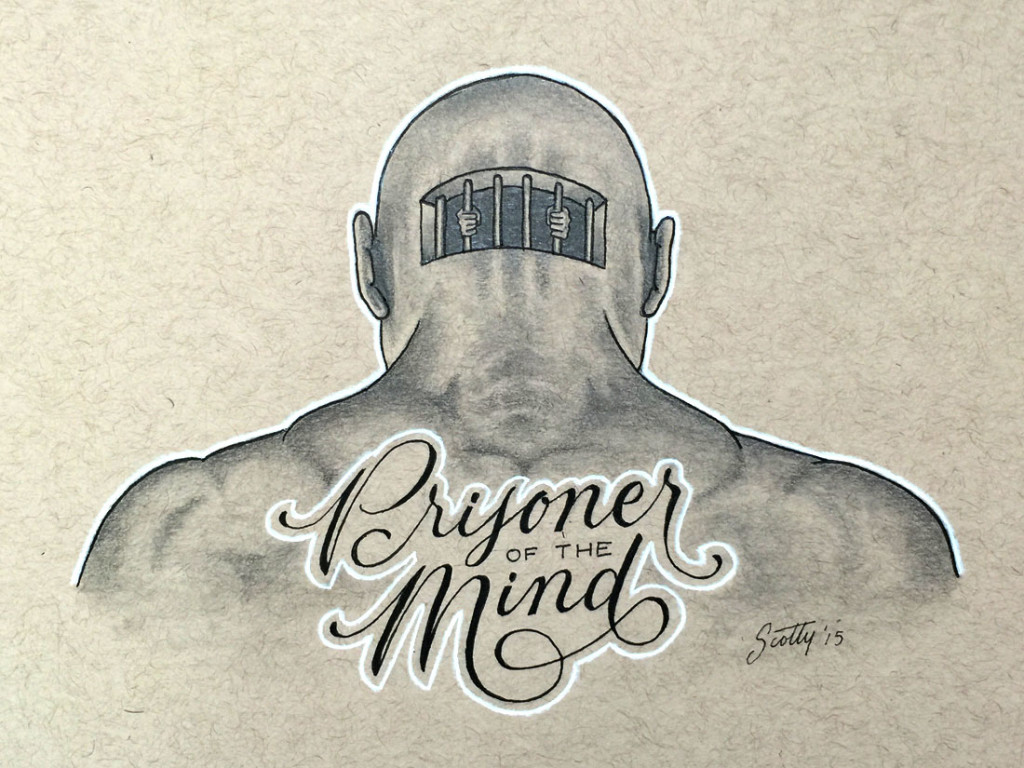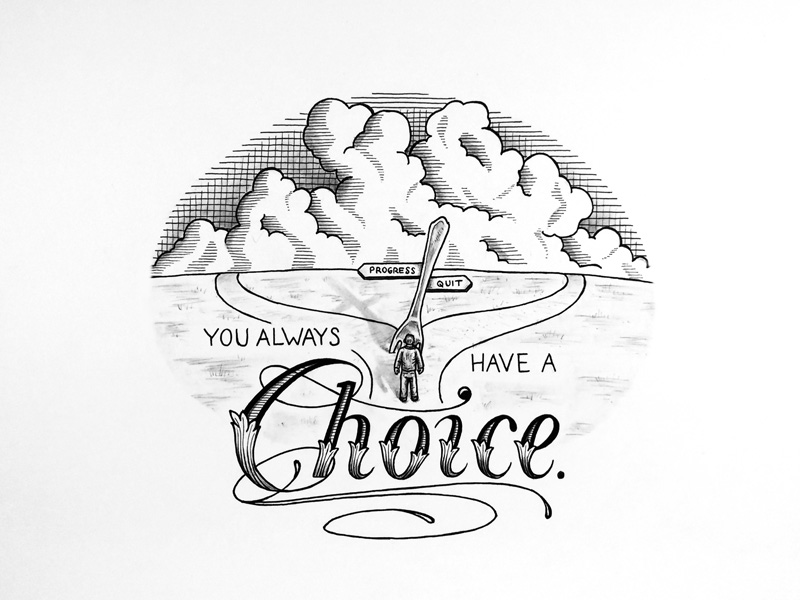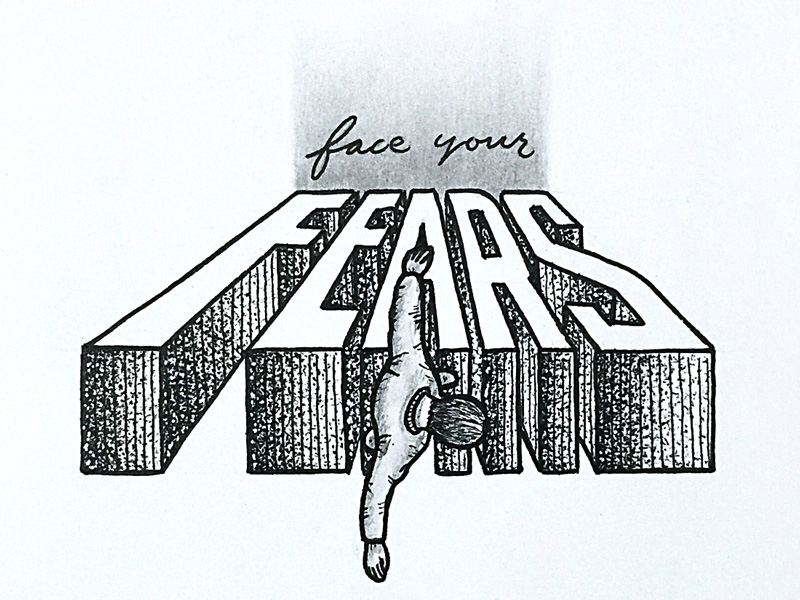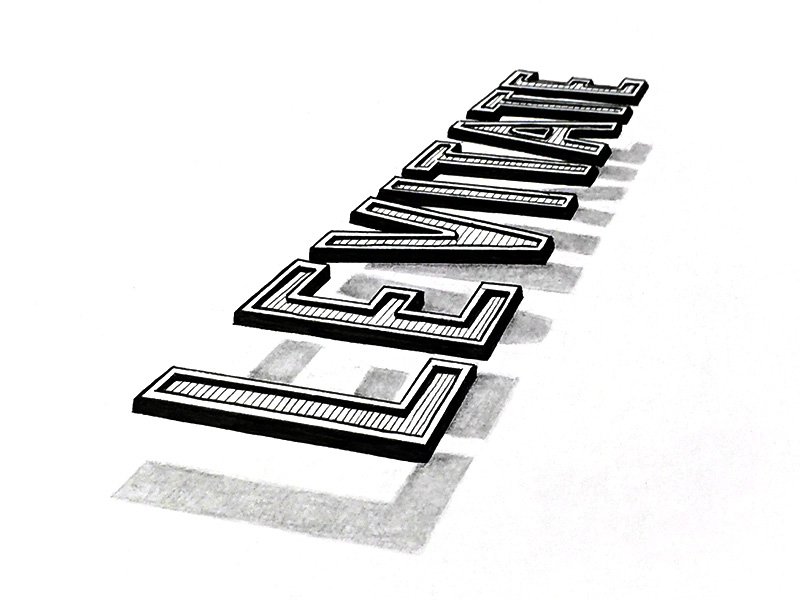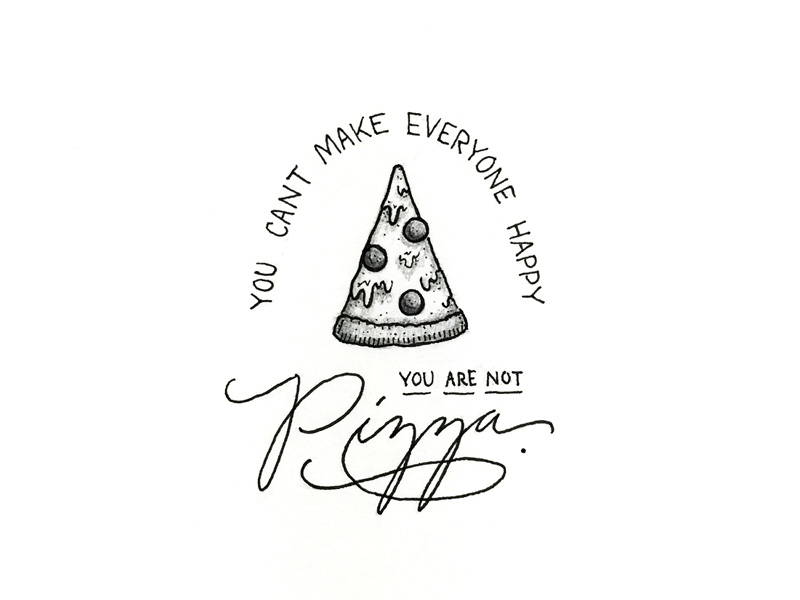
Lettering Legend - Scotty Russell Interview
Scotty Russell has more than earned the title of 'Lettering Legend', not only is he very talented at lettering, he's also very supportive too.
One of the first things that caught my attention when I looked at Scotty's work was the originality of it all. He doesn't follow current trends, he does his own thing and he does it well. Scotty also stood out because he is continually supporting and inspiring those of the lettering world in such on honest way. We first met on Twitter where he was supporting Brooke Bucherie founder of Goodtype by sharing her Lettering Legend interview, and soon after I was able to see many of the ways he was supporting and inspiring others too.
Every week Scotty shares an inspiring article on his Perspective Collective website, and if you're a member of his Newsletter he encourages you to reach out to him and ask questions so he can help you, what a great guy!
Each month I get so excited when it's time to announce a new 'Lettering Legend', just like a kid at Christmas, because I know how much value each interview can bring you. At the time of writing this article Christmas isn't too far away, so I thought I'd ask Scotty a fun Christmas question in the interview. Find out what lettering tools Scotty would like for Christmas, get tips on drawing lettering at different perspectives, and discover whether using specific mediums can have an impact on digitising lettering. There's also a brilliant lettering illustration with a quote about pizza which Scotty put a clever twist on, plus more tips and information too all in the interview below!
If you're not sure what a 'Lettering Legend' is or how to qualify you can get caught up in full by reading 'Lettering Legends'. To give a quick summary though, a legend is someone who has inspired others through the work that they do.
Christmas is not too far away now, if you could ask Santa for any shiny new lettering tool, what would it be and why?
"I think a Rapidograph 7-Pen Technical Pen Set and a Copic Multiliner SP set would be awesome. Precise and quality inking never goes out of style."
A selection of your hand lettering work approaches lettering words / phrases at angles and different perspectives, do you have any tips for perspective drawing?
"I’ve done a lot of research on 1 point, 2 point and 3 point perspective. I recommend someone spending quality time researching these topics and mastering vanishing points. Executing depth and space within your lettering will help your work stand out and take on a life of its own."
I’ve noticed you often use hand lettered pieces of work to go with the blog posts you write, and many of your pieces include quite detailed illustrations too. How long on average do you spend lettering a piece of work, and how do you manage your time to create all your great content on a regular basis?
"I believe my art needs to tell a story in itself as well as help visually aid my message behind my blog posts. The illustrations add that extra dimension to the piece. I try to give myself a 2–4 hour time frame to complete the image but I tend to go overboard and zone out sometimes. A piece may really resonate with me and I can’t help but go all out on it. It can put me in a bind if I’m not working ahead. I write out my process so it’s like a checklist and I schedule allotted times for writing in the mornings and drawing in the evenings. What gets scheduled gets done."
You’ve been learning lettering via Sean McCabe’s lettering masterclass, how has it helped you and what do you think are the key benefits of participating in the class?
"I am definitely an ambassador of seanwes. I bought his original Master Class and the content I learned ended up paying for the class within my first client job. Sean’s become a friend and mentor and I actually had the honor to be a part of his Lettering Master module in his latest Learn Lettering 2.0 class. You can view my feature interview in his Free Starter Class. I recommend his course to anyone who struggles with the basics of lettering such as how to practice, the anatomy of a letter, kerning, pairing styles, etc. He also takes it to another level for those who want to teach lettering as well, along with selling your work properly based off value, setting up contracts and collecting royalties for your hard work. It’s truly more than just learning to draw letters. It’s how to make a living off it."
Much of your lettering work is in black and white. Do you think it’s good practice for letterers to work in monochrome, making the digitisation process smoother, or is black and white just your preferred way of working?
"Working in black and white goes back to my roots. I’ve been using pencils and ink pens since I can remember and I’ve gradually improved my craft as the years progressed. I’m determined to master these medias and I have a good time doing it. However, I slowly work with other medias and color on the side to keep my brain guessing. I don’t post most of that work as it’s more focused on fun and experimentation. Working solely with ink makes heavy detailed drawings easy to pick up in Illustrator on live trace settings if I don’t take the time to build it from scratch. Yet working with graphite is a huge challenge in the digitization process. It doesn’t allow for much flexibility."
Is it best to be comfortable at lots of different styles of lettering or develop your own style?
"I feel once you’re starting off, it’s important to experiment and imitate things that inspire you without publishing this work as your own or without credits. As you improve, I believe developing your own unique style is what will help build an audience and a name for yourself. Carve your own niche. Too many artists are copycats and fall victim to trends or try to be a jack of all trades. I feel you should focus and curate a specific style you want to be known for and explore those secondary styles behind the scenes. I’d rather be known for the guy who mastered one thing than the guy who was really average at a lot of things."
What advice or tips would you give those first starting out at lettering?
"Progress and success doesn’t happen over night. We live in a microwave society where everyone expects instant gratification. If something doesn’t work right away then it’s time to jump ship, hoping to become the next internet sensation. Any success I have ever attained is because I’ve invested the time and committed myself to deliberate practice. I still feel I haven’t accomplished anything yet, and that motivates me to continue this obsession with drawing letters mixed with illustrations."